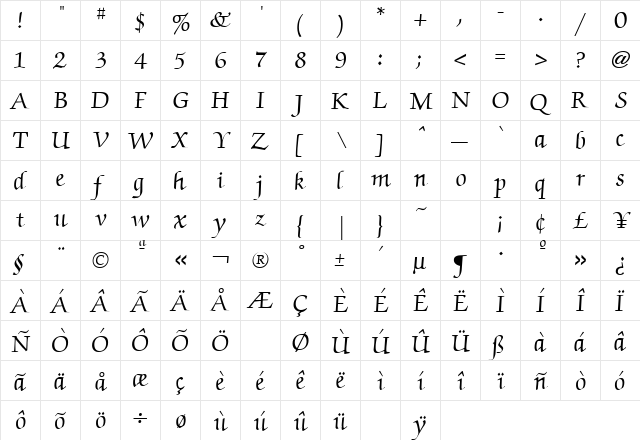
Zapf Chancery Medium Regular
Design Context for Zapf Chancery Medium Typeface
Zapf Chancery Medium is a composed and adaptable typeface that performs quietly and consistently across a wide range of design contexts.